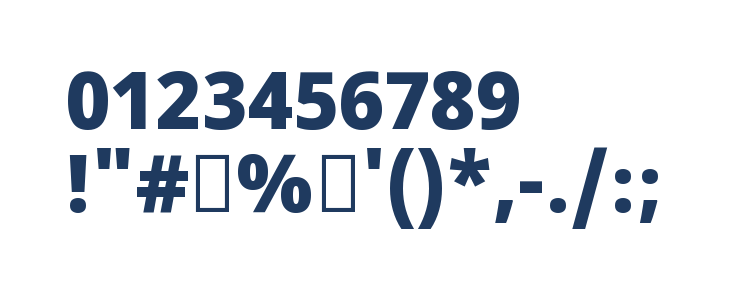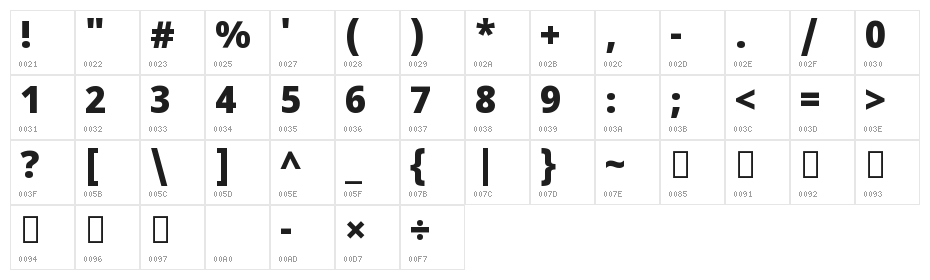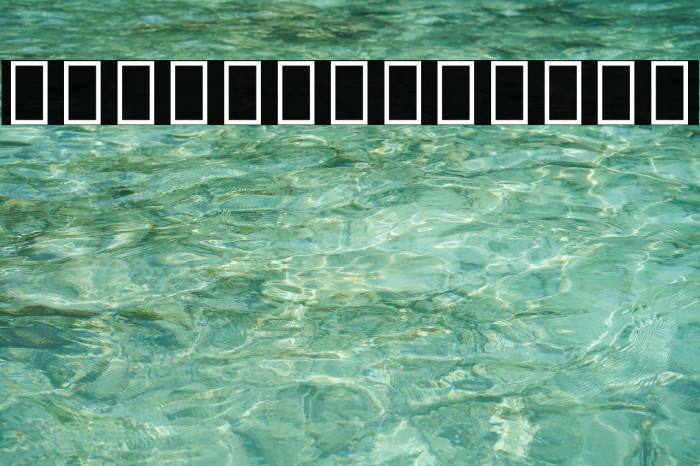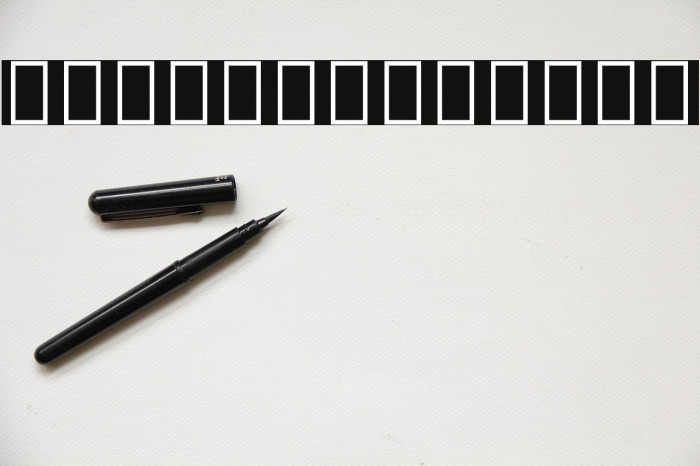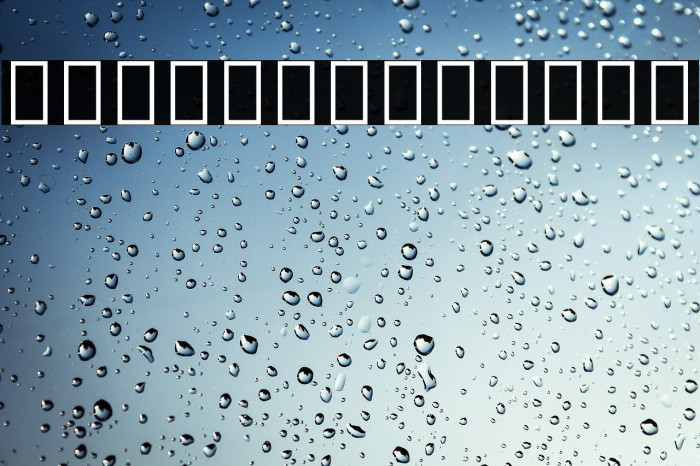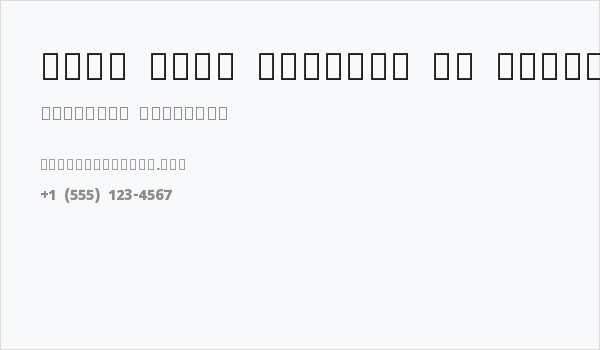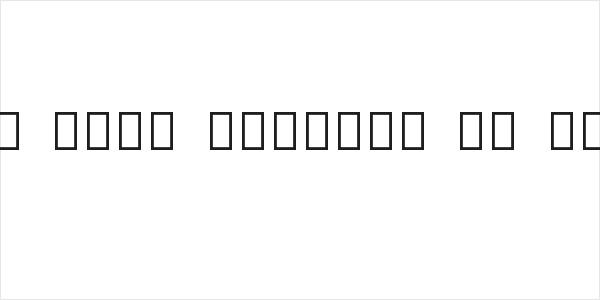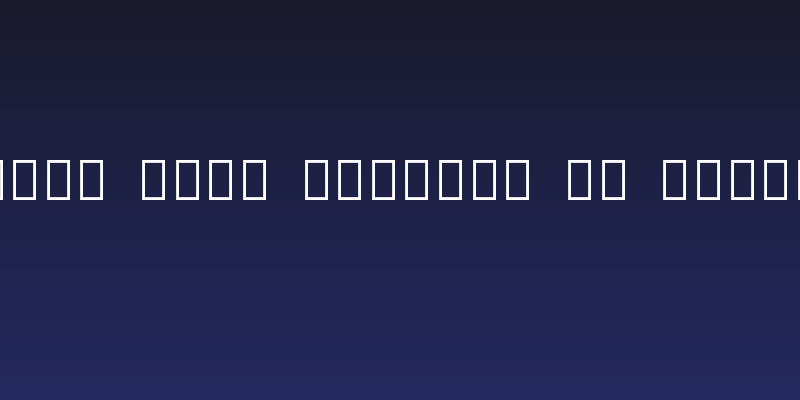
Noto Sans Sinhala UI Black Font
Noto Sans Sinhala UI Black Description
This font is characterized by its bold and robust appearance, making it highly suitable for impactful designs. The numerals are clear and prominent, ensuring readability even at smaller sizes. The special characters are well-defined, adding versatility for various design needs. Its strong presence makes it ideal for attention-grabbing headlines and titles.